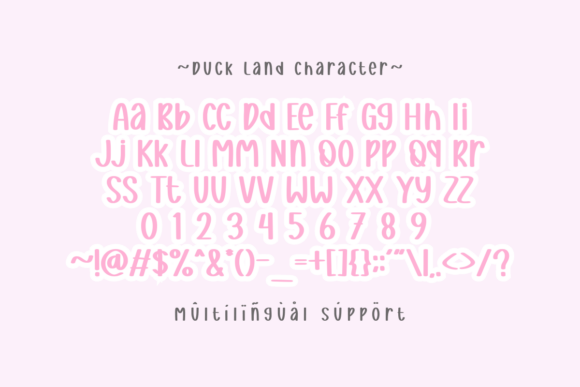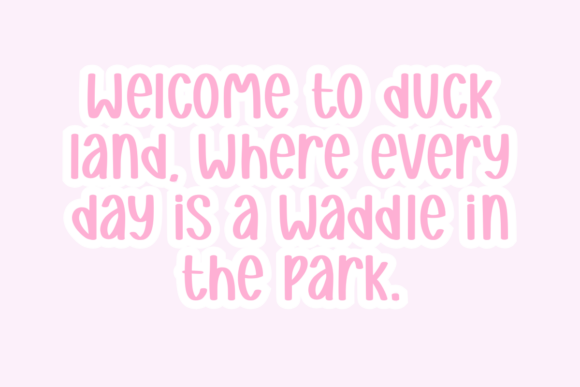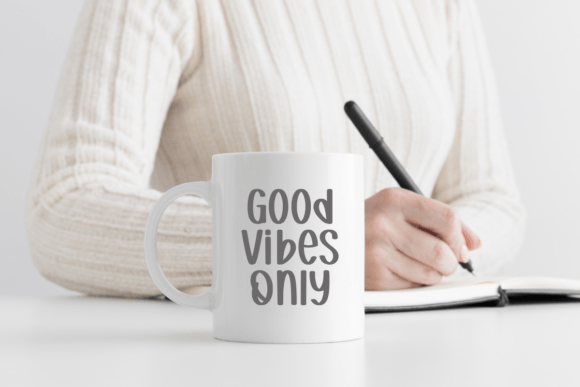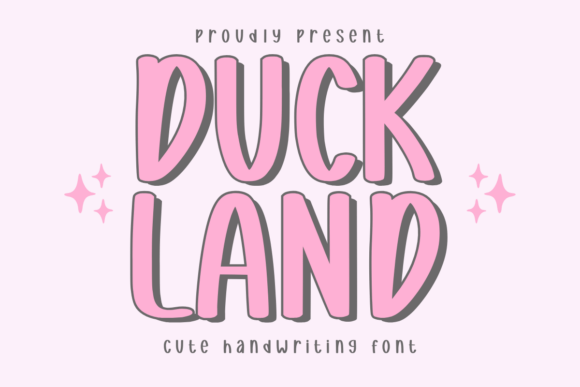
Introduction to Duck Land Font
Duck Land is a charming and cute sans serif font, perfect for adding a touch of playful warmth and personality to all your creative projects.
Its bubbly, rounded letterforms are designed to evoke a sense of childlike innocence and delightful whimsy, making it an ideal choice for designs that aim to be cheerful and approachable This versatile typeface shines in a variety of applications, from delightful children’s book illustrations and engaging social media graphics to adorable party invitations and unique branding for sweet ventures.
Key Features of Duck Land Font